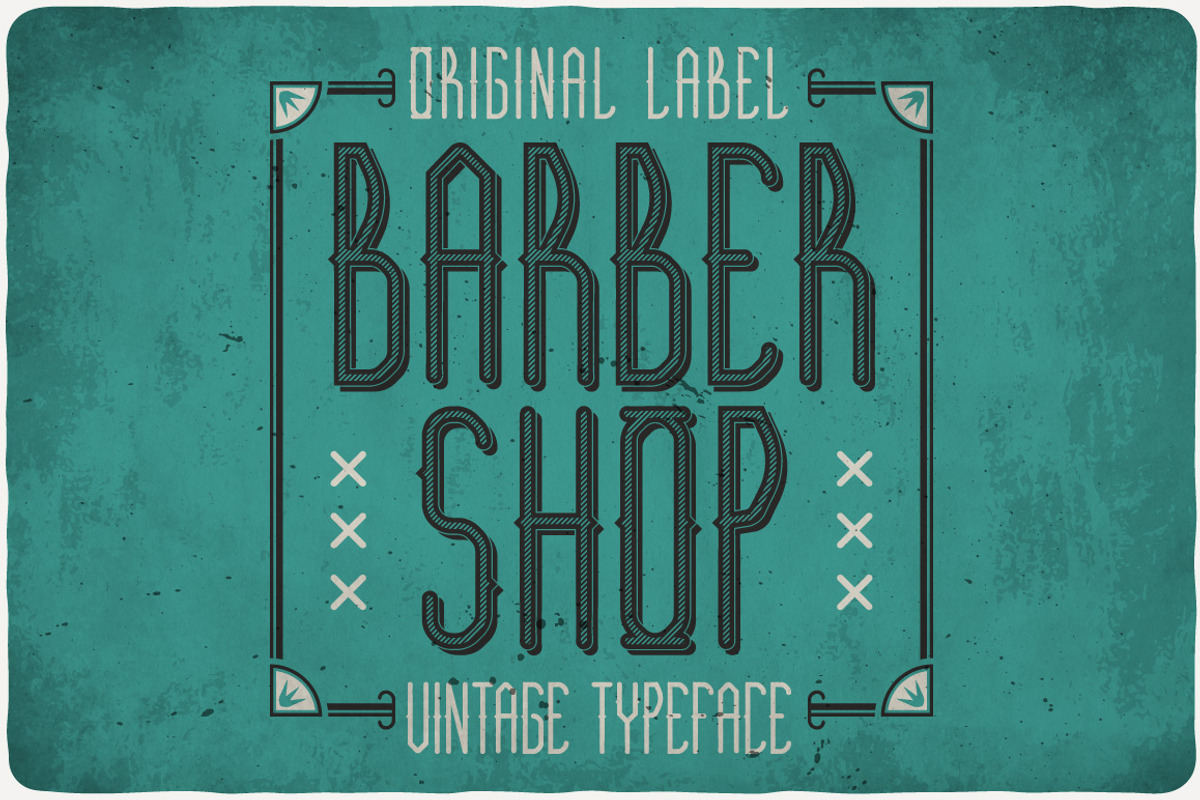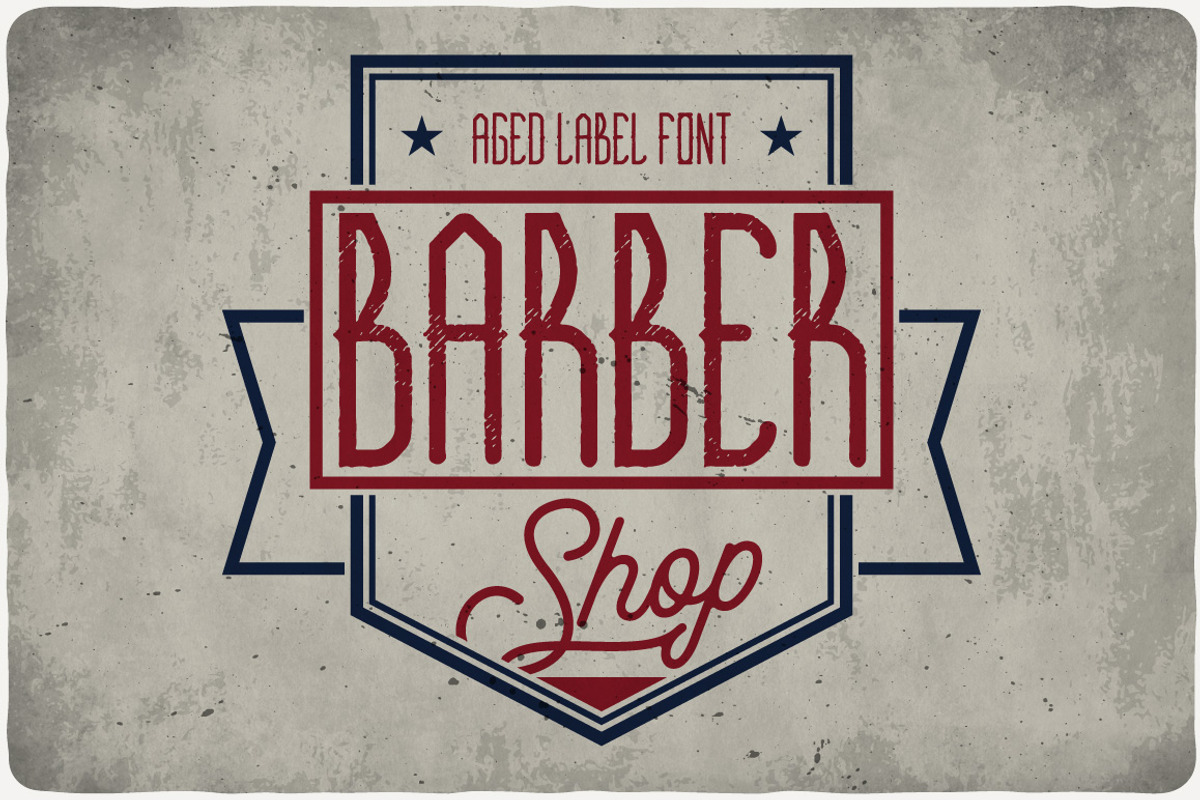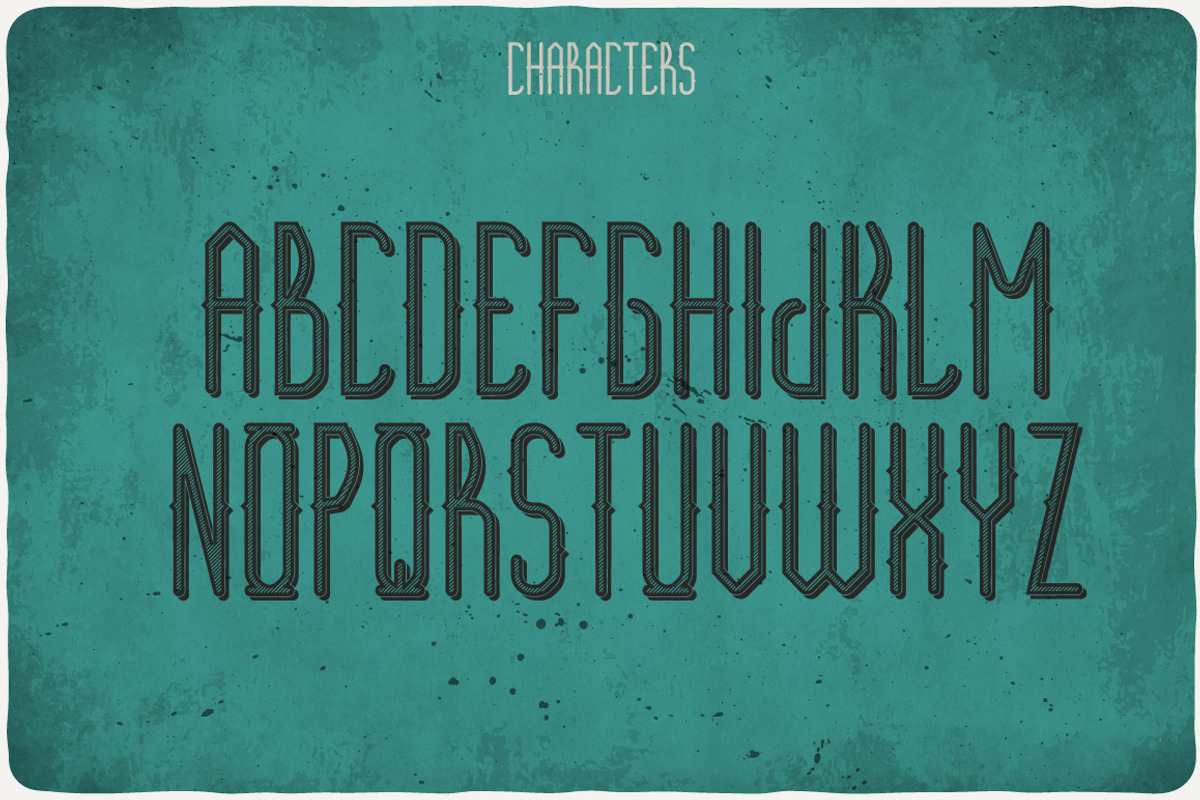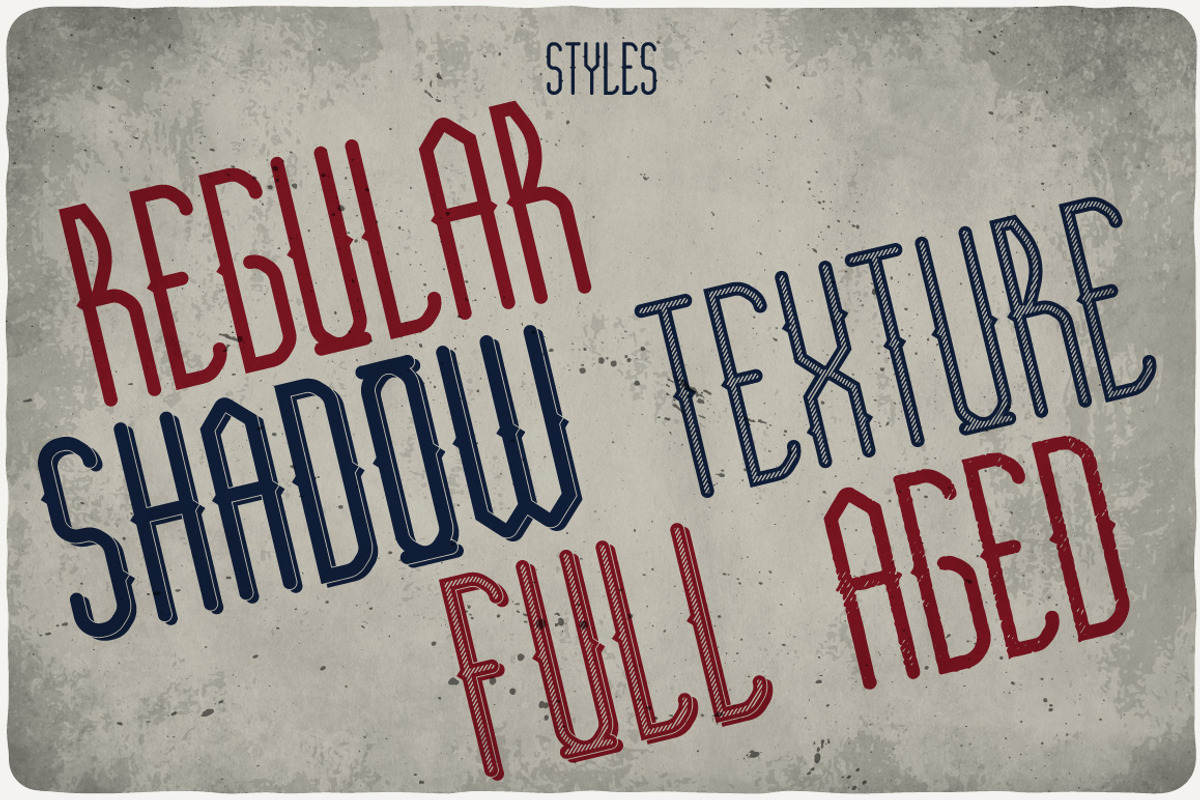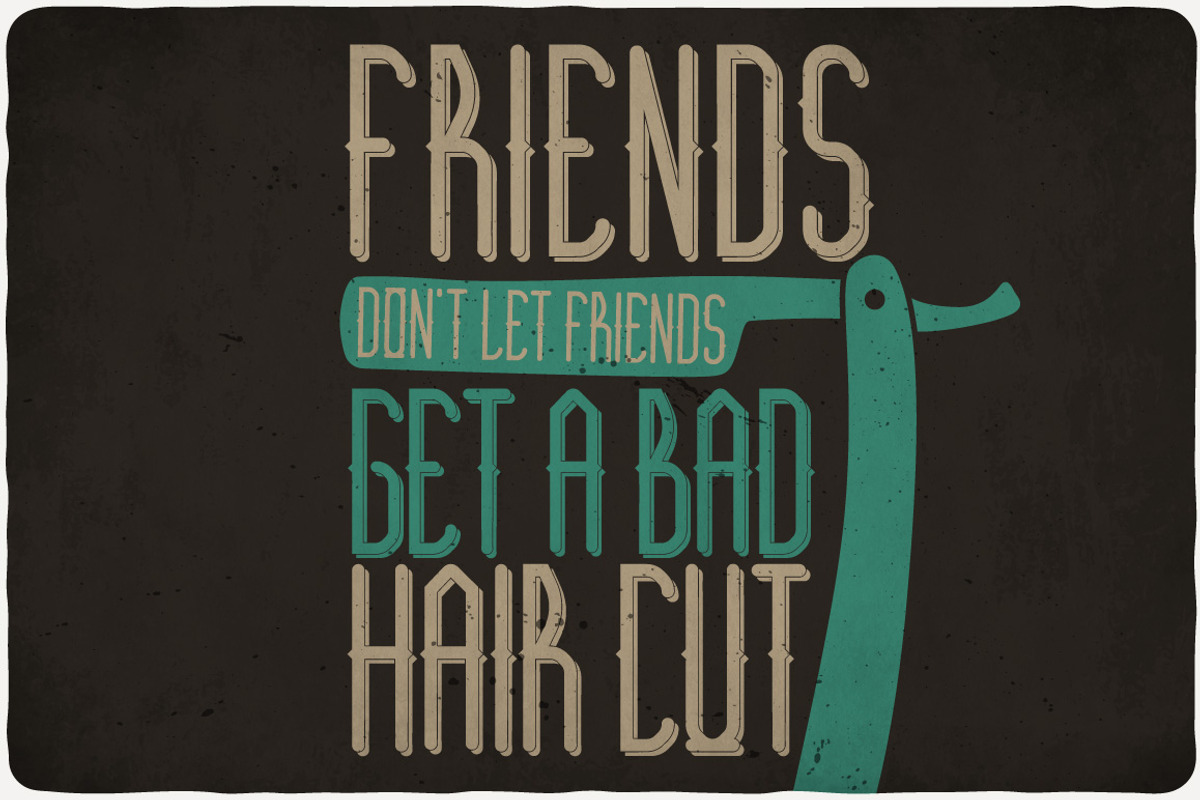
Barber Shop Typeface
Introducing a original look label typeface named "Barber Shop". It's made in strong and vintage label style. The font will look good on any of your designs.
- Barber Shop Regular
- Barber Shop Aged
- Barber Shop Shadow
- Barber Shop Texture
- Barber Shop TextureAndShadow
Barber Shop Typeface by VozzyStock fits naturally into Branding, posters, packaging, typography.